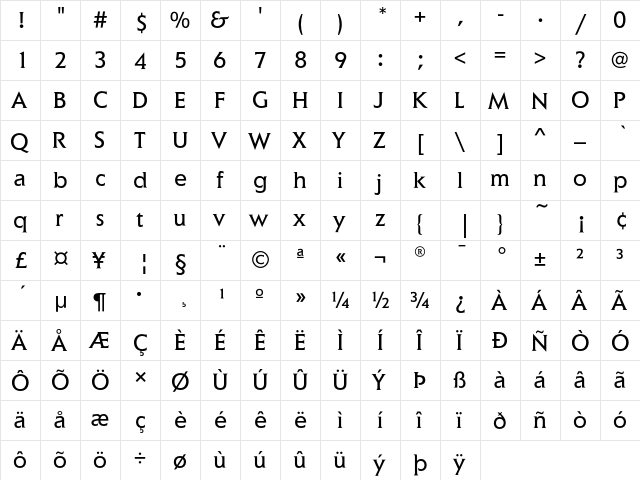
ElanEF Book
Design Context for ElanEF Typeface
ElanEF offers clean, dependable letterforms without strong stylistic allegiance, making it a practical choice for designers who need flexibility.